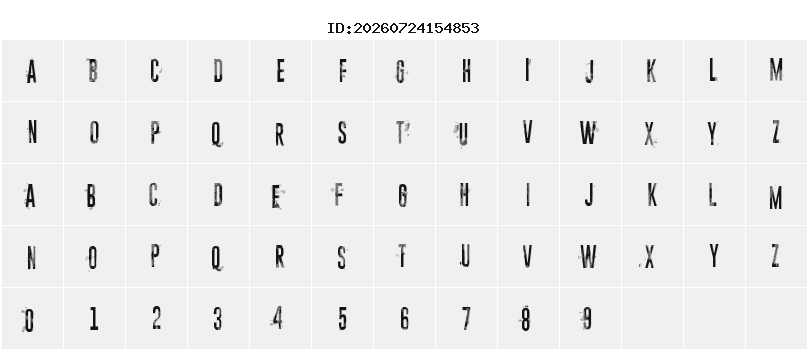
Midnight crimson Preview
• Font Name: Midnight crimson
About Midnight crimson.ttf
Midnight crimson.ttf is a modern, elegant sans-serif font designed for ultimate readability and visual harmony. Perfect for branding, headlines, web design, and print materials.